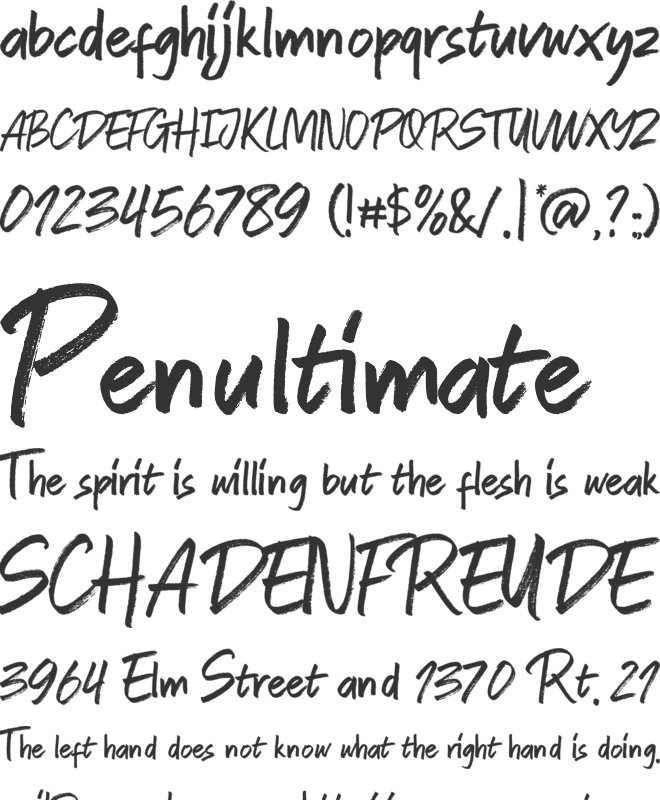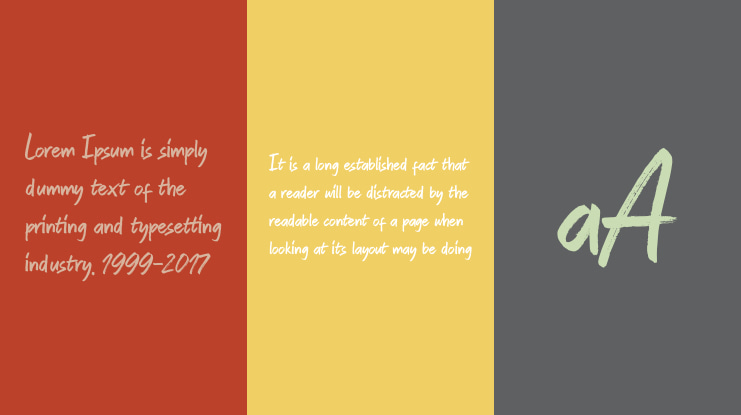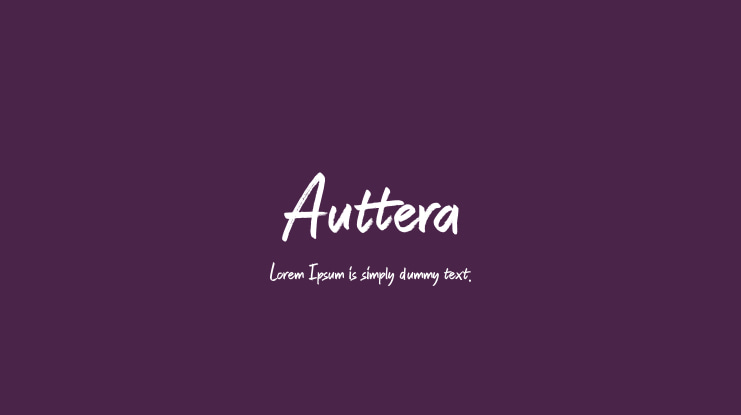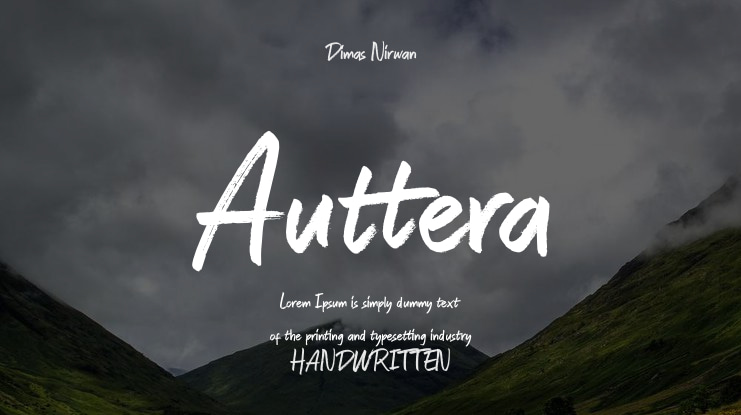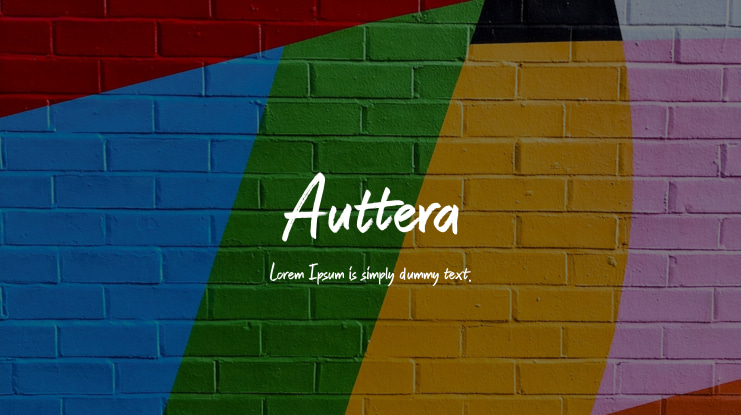
Auttera Font
Auttera is a unique and authentic typeface made from real hand-drawn sketches using a marker pen. Its organic and natural design brings a personal touch to any project, making it stand out from the rest. Discover the beauty and originality of Auttera and elevate your designs with its one-of-a-kind style.